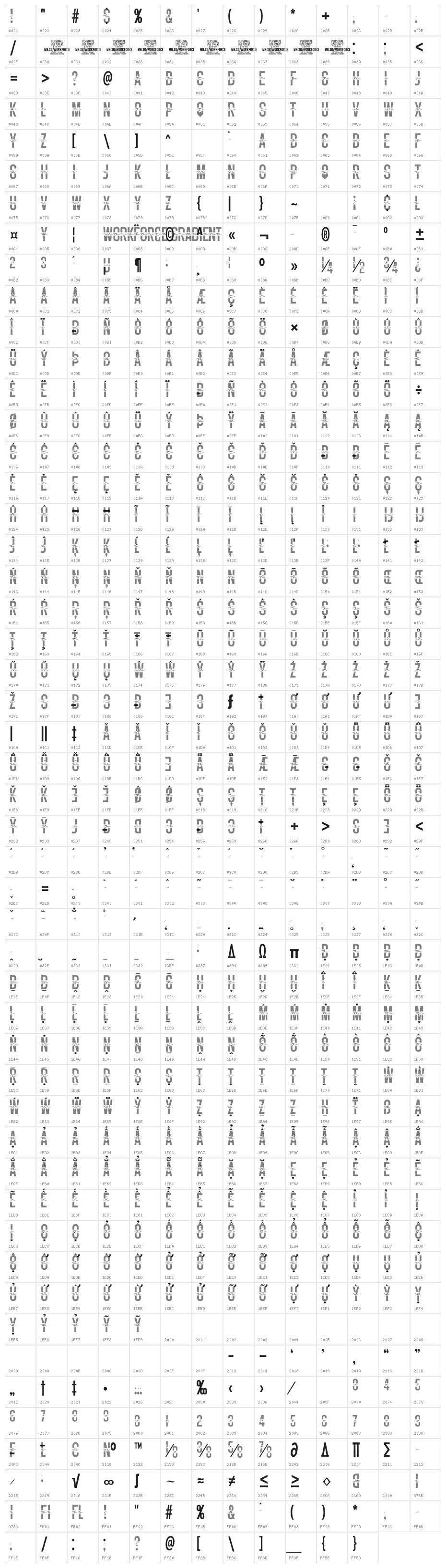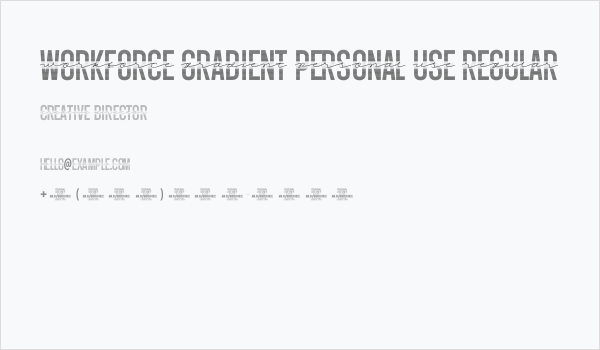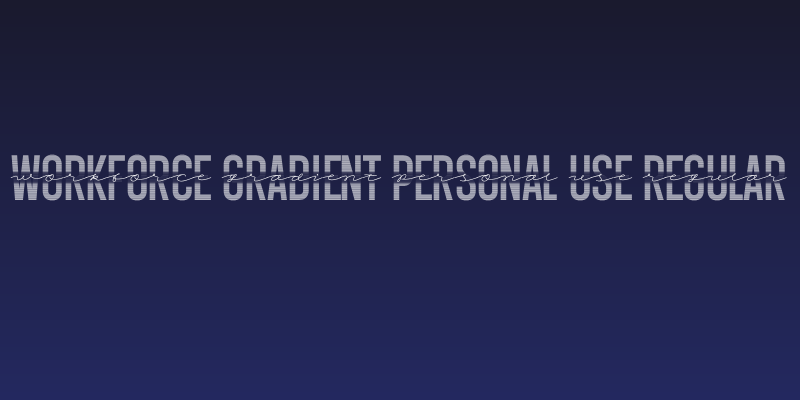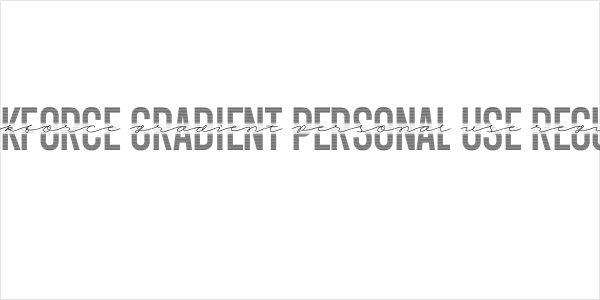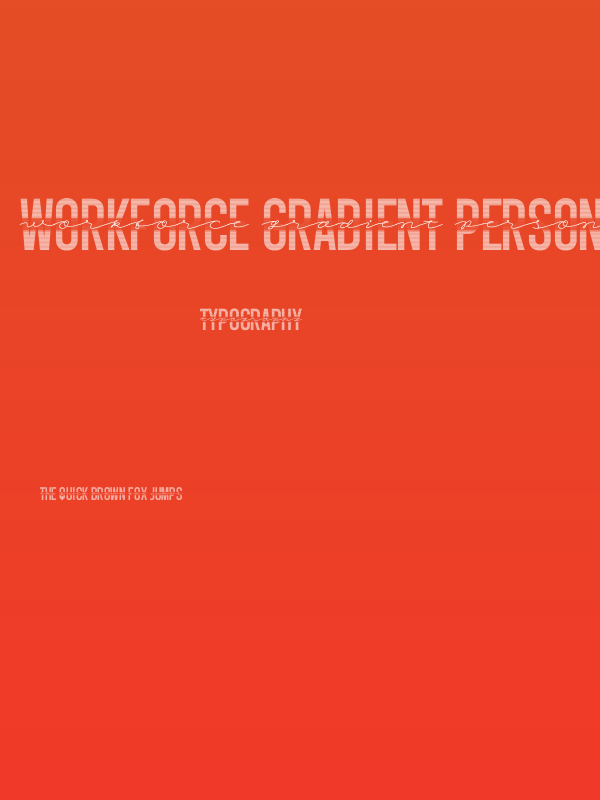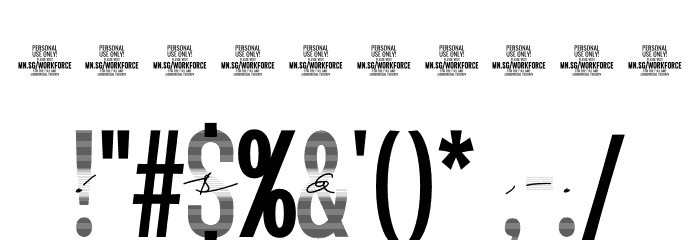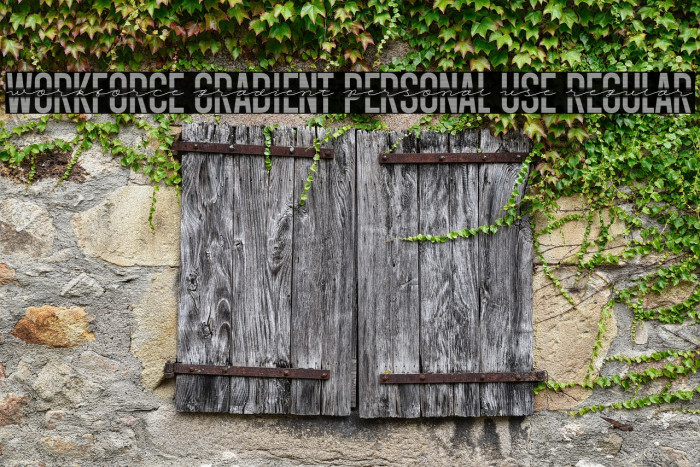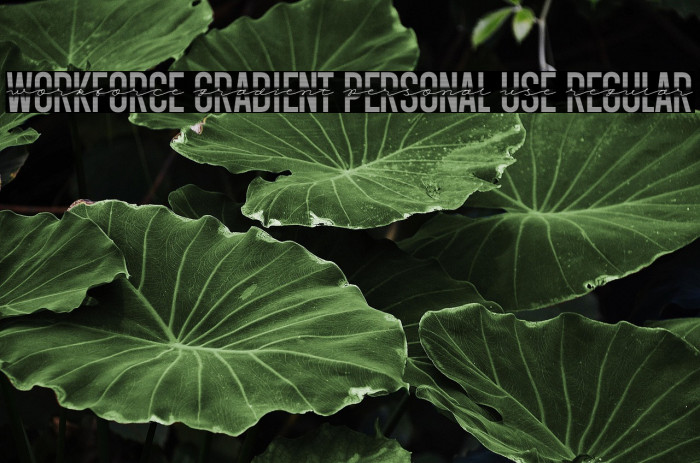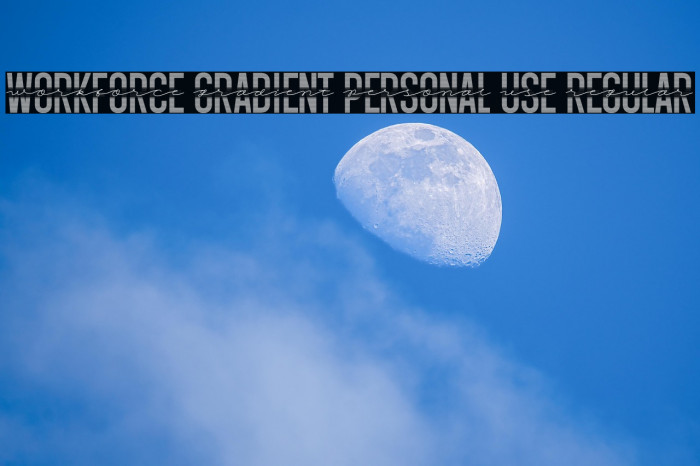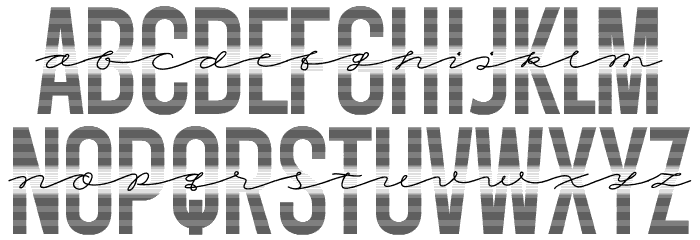
Workforce Gradient PERSONAL USE Regular Font
Workforce Gradient PERSONAL USE Regular Description
This font features a bold, modern design with a gradient effect that gives it a dynamic and eye-catching appearance. The uppercase letters are strong and impactful, making them suitable for headlines and titles. The lowercase letters have a unique cursive style that adds a touch of elegance and contrast to the overall design. The numbers and special characters maintain the bold aesthetic, ensuring consistency across all elements. The gradient effect adds depth and dimension, making this font ideal for projects that require a contemporary and stylish look.